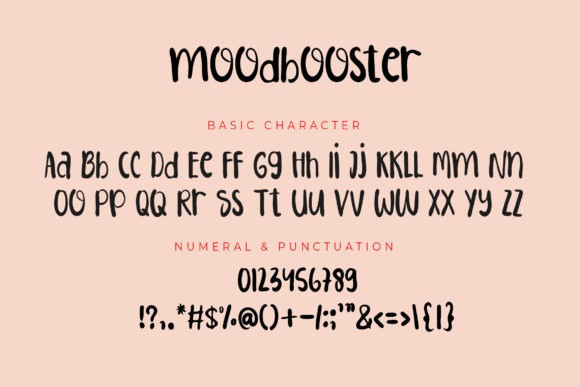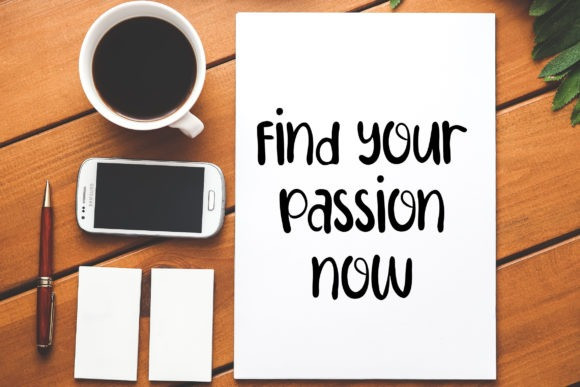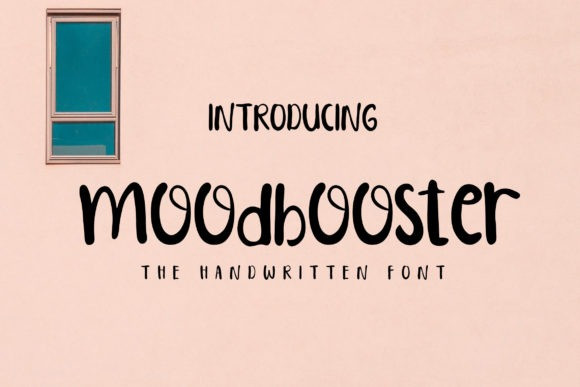
Moodbooster Font
Moodbooster Font is a cute, round lettered and fun handwritten font. Whatever the topic, this font will be a wonderful asset to your font library, as it has the potential to enhance any creation.